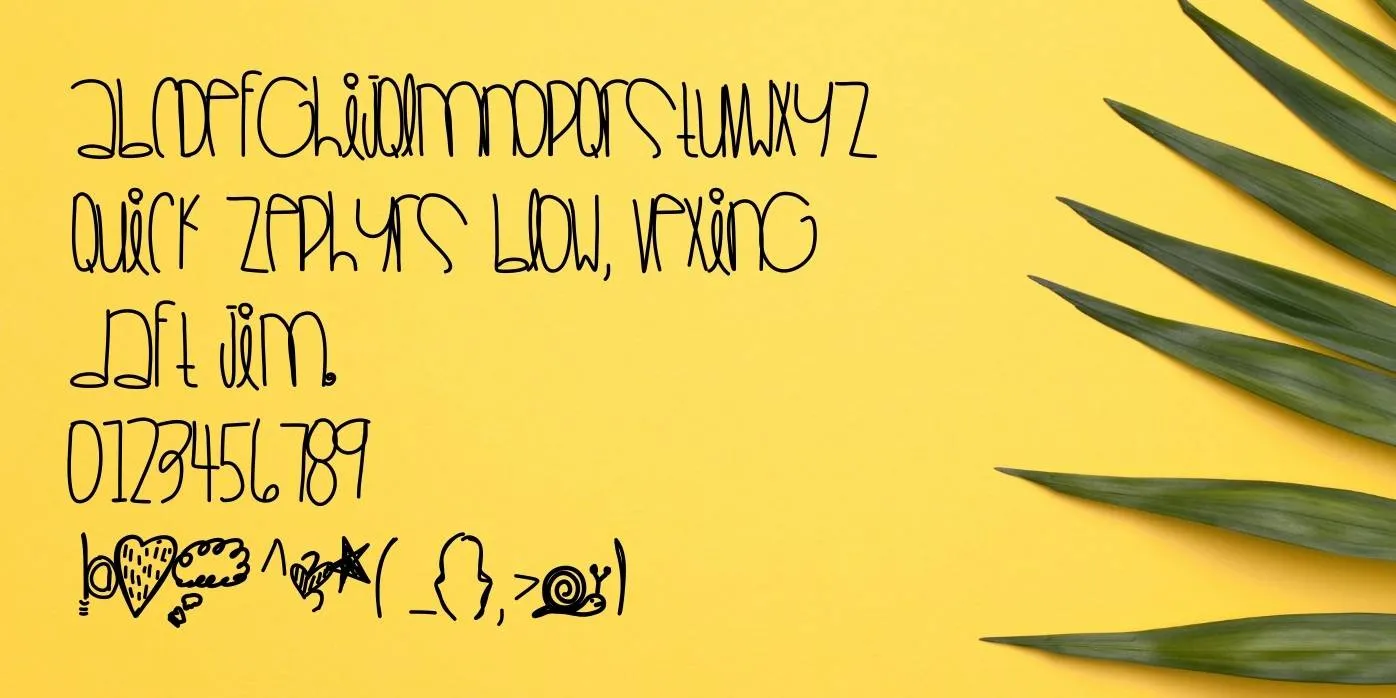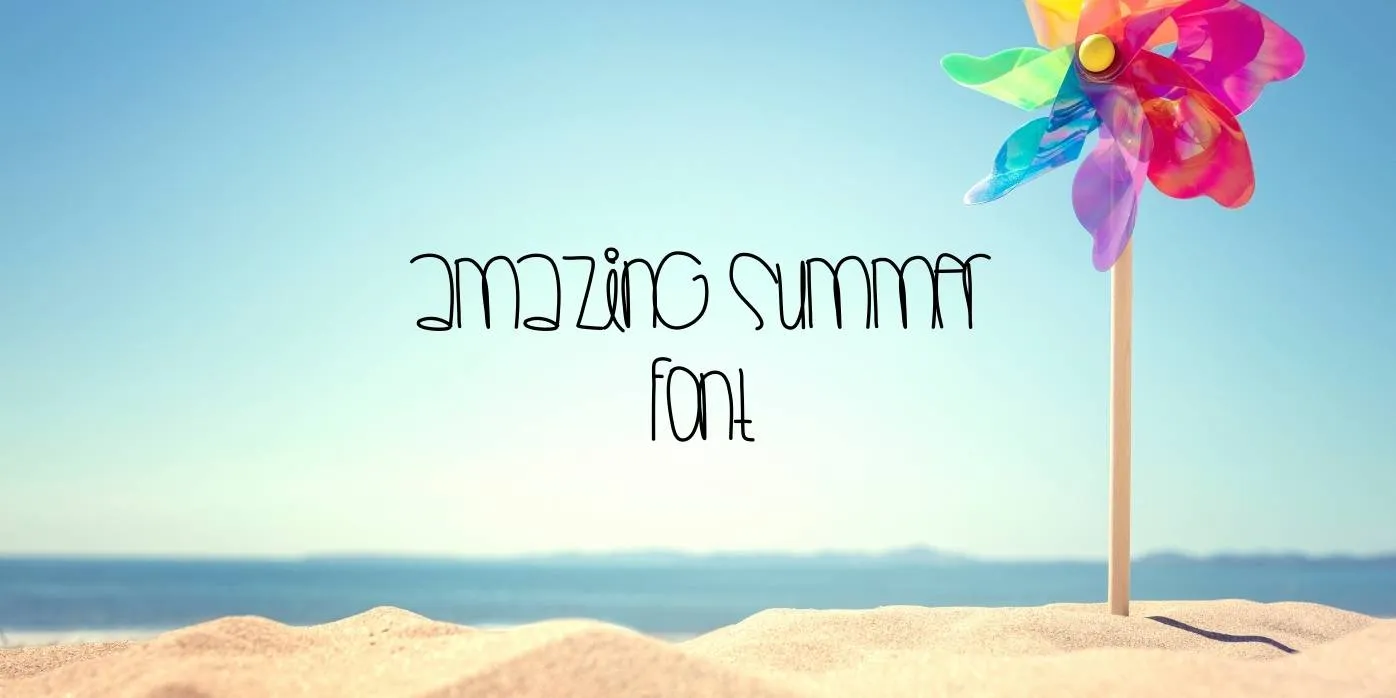
Amazing Summer Font
Introducing the very special and fun typeface that is Amazing Summer font. This unique and playful typeface belongs to Script Fonts. You can see the designs and shape of this typeface in the feature image above. The font family has TTF features and can be downloaded easily.
This font is very useful in many playful designs and logos. The typeface has the ability to support immense languages. The font family comes with special Uppercase and Lowercase Letters, and Numbers, and some special characters, etc. The Font is free for personal use that you can only use in your nonprofit projects.